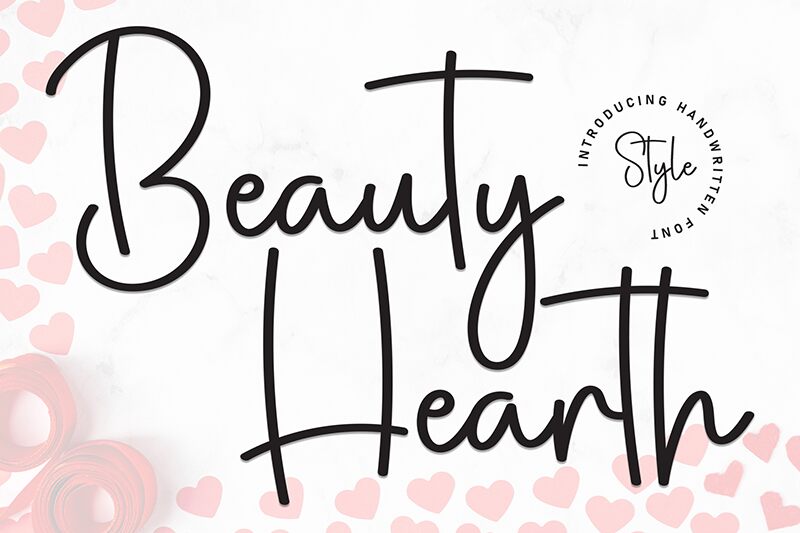
Beauty Hearth
Beauty Hearth font by Scratchones is a light, handwritten typeface with a smooth flow. It carries an elegant yet casual look that leans more on the contemporary side of script fonts. The friendly aesthetics it helps bring forth fill projects that use it with approachability.
Use this free handwritten font in invitation or greeting card designs, hospitality branding, packaging, and product labels. Beauty Hearth can also work in social media ads with images as captions, on book titles, posters, brochures and magazines titles.